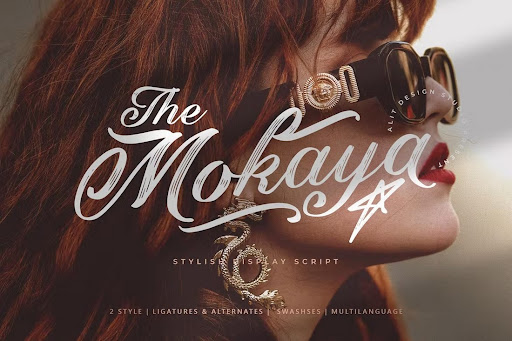
There’s no denying that calligraphy swashes, or fonts with tails, bring a certain pizazz to your text. If you’re looking for the best fonts with swashes, here’s a collection of the best premium and free fonts with tails that will make you swoon.
In this article, we’re bringing ou a number of stunning swash fonts, created by a slew of talented designers from around the world.
Mokaya – Stylish Script Swash Font
If you’re looking for a swash font with a modern and trendy design, this font is perfect for you. It features a script letter design with beautiful tails. The font also comes in multiple formats, including a Web Font version. And it includes two styles of fonts with lots of alternate characters.
Kathiya – Calligraphy Script Swash Font
The elegance of this font is in its swashes. Kathiya is a modern calligraphy script font that features curvy letter designs. It includes loads of alternate characters and ligatures. And you can use it to craft amazing product labels, creative business cards, custom T-shirts, and more.
Bastille Members – Brush Font With Swash
This font features a unique letter design with a mix of brush and swash designs. Although it looks amazing for crafting bold titles for posters and flyers, as well as for many other types of designs. The font includes uppercase and lowercase letters along with a wide range of multilingual support.
Cosmic Furry – Handwritten Script Font with Swash
If you’re a fan of typography with long curvy ends, you’ll immediately fall in love with this font. In addition to its handwritten script letters, this font comes with very long swashes for the start and ending of letters. There are lots of other alternate characters and ligatures to choose from as well.
Wild Romance – Creative Font with Swash Tails
Needless to say, this font is the perfect choice for designing all sorts of cute, adorable, and romantic designs. It will fit in nicely with everything from Valentine’s cards to packaging designs, product labels, and much more. The font includes both uppercase and lowercase letters with 26 additional swashes.
Monstores – Signature Script Swash Font
Despite the unusual name, Monstores is actually a lovely font that has a stylish signature script design. The font comes in regular and swash styles that are both ideal for various professional and creative projects. The font looks especially perfect for logos, posters, social media, and website header designs.
Aligano – Creative Swash Font
Aligano is an elegant swash font that features a beautiful set of characters. It has a handwritten style letter design that goes well with many different types of designs, including greeting cards, wedding invitations, labels, and even custom T-shirts.
Mittan Candy – Cute Script Swash Font
The cute and adorable look of this font makes it perfect for all kinds of designs related to children. It would make packaging designs for sweets like ice cream and cupcakes look much more attractive. Of course, the font is great for many other types of designs as well.
Yamatha – Feminine Swash Font
This font is designed with wedding invitations and Instagram posts in mind. However, it has a beautifully feminine design that’s ideal for various other crafts, such as product labels, creative business cards, flyers, and greeting cards. The font includes beginning and ending swashes as well.
Koffiesta – Handwritten Font with Swash
Koffiesta is a unique handwritten font that features regular and swash styles of lettering. The font looks incredible for various styles of modern designs, especially for T-shirts and custom mug prints. It includes both uppercase and lowercase letters.
Saekana Script – Stylish Swash Font
This stylish script font comes in two styles of designs, one with a clean design and another with a rough swash design. The font has the perfect look for designing everything from website headers to logos, badges, T-shirts, mugs, and everything in between.
Nickollas – Handwritten Swash Font
The handwritten letter design of this font makes it a great choice for crafting more creative and personal designs, such as greeting cards and business cards. The font is available in regular and swash font styles. Both fonts include lots of ligatures and multilingual support.
Gardenia Script – Calligraphy Swash Font
As you can see from the preview image, this font features some of the most creative-looking swashes we’ve seen so far. The font lets you choose from a selection of stylish tails and swashes for making your headings and titles look prettier than ever.
Bohemia – Script Font with Swashes
Bohemia is an elegant script font that also features beautiful swashes. This font has a set of unique letters inspired by Bohemian-style designs. It’s simply perfect for designing logos, signage, labels, and more, especially for luxury and high-end brands. It includes lots of alternate characters and ligatures too.
The Beardy Script – Free Handwritten Swash Font
This is a free script font that comes with a beautiful handwritten design. It also features stylish swashes. You can use it for free with personal and commercial projects.
Big Swash – Free Script Font
Just as the name suggests, this font comes with big bold letters and with beautiful swashes. The font is ideal for creative business cards, poster titles, and headings. It’s free to use with your personal projects.